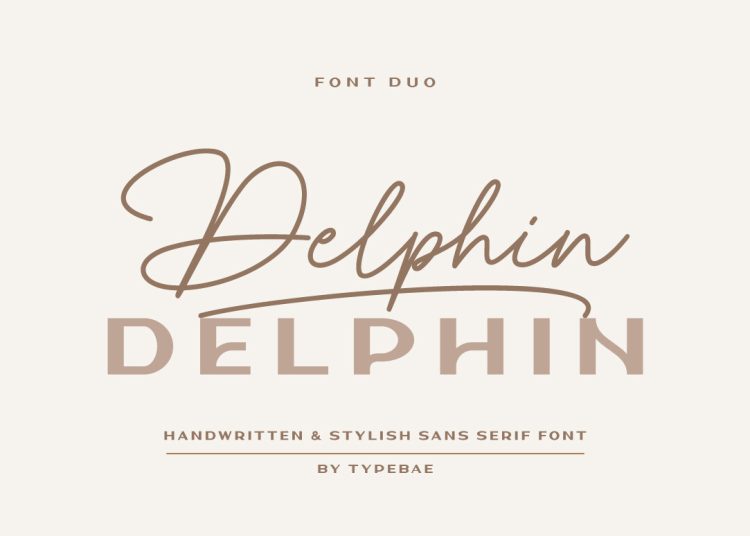
Delphin Font
Indulge in the splendor of typography with the captivating “Delphin” font family. This versatile typeface offers a harmonious blend of elegance and modernity, featuring two distinct styles: an italicized script and a sleek sans-serif variant. With its remarkable beauty and contemporary appeal, Delphin effortlessly captures attention and elevates any design project.
What distinguishes Delphin is its charming swashes, gracefully adorning the beginning and end of each letter with a flourish reminiscent of a backward ‘C’ and a forward embellishment. These swashes add a touch of sophistication and personality, infusing each character with a sense of artistry and flair.
Whether you’re seeking to infuse romance into wedding invitations or convey professionalism in corporate branding, Delphin provides the perfect balance of style and versatility. Its italicized script exudes warmth and charm, while the sans-serif variant exudes a clean, modern aesthetic, making it suitable for a wide range of design applications.
For further customization, Delphin offers the option to insert swashes with ease. Simply type “a1” for the first swash and “a2” for the second swash, allowing users to effortlessly enhance their designs with additional flourish and style.
Step into a world of timeless elegance and contemporary sophistication with Delphin font. Whether you’re a seasoned designer or an aspiring enthusiast, Delphin invites you to explore the endless possibilities of typographic expression and elevate your designs to new levels of beauty and creativity. Embrace the artistry of typography with Delphin and let your creativity soar.